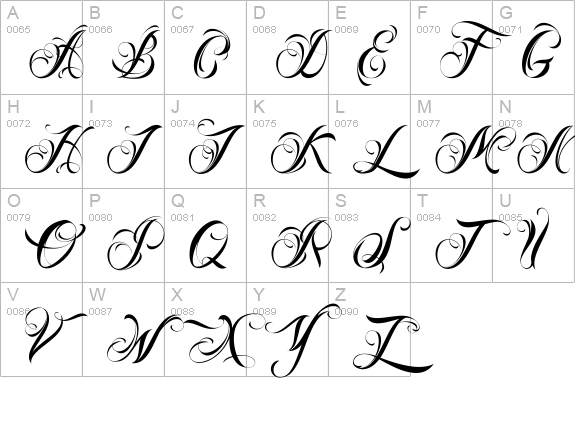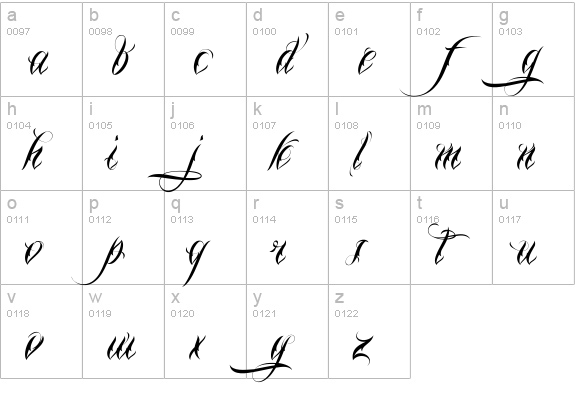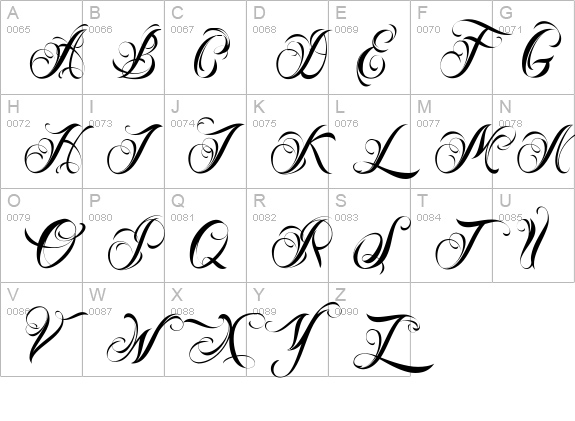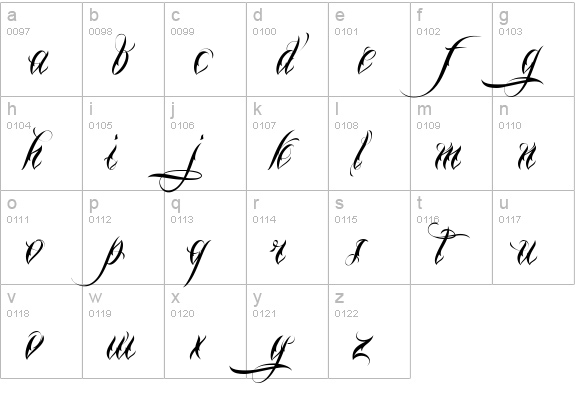
Nina Script Demo Font Details
Nina Script Demo font is a stunning and elegant typeface that will add a touch of sophistication to any design project. With its delicate and flowing script style, this font is perfect for creating beautiful wedding invitations, stylish logos, and eye-catching branding materials. Its unique swashes and ligatures add an extra flair, making your text truly stand out. But what makes Nina Script Demo font even more appealing is that it is completely free! Yes, you read that right. This amazing font is freely available to download at FontsMarket.com, a trusted source for high-quality fonts. Whether you are a professional designer or just starting out, you can now access this premium font without any cost. Not only does Nina Script Demo font offer exceptional aesthetics, but it also provides excellent legibility, ensuring that your message is conveyed with clarity and style. Its versatile nature allows it to be used in a variety of design projects, from elegant wedding stationery to bold advertising campaigns. This font truly embodies the perfect balance between elegance and modernity. Its smooth lines and intricate details make it a standout choice for those who appreciate refined beauty. Whether you're designing for a luxurious event or simply want to add a touch of sophistication to your personal projects, Nina Script Demo font will undoubtedly impress. So why wait? Head over to FontsMarket.com and download Nina Script Demo font for free. Elevate your designs and leave a lasting impression with this exquisite typeface.